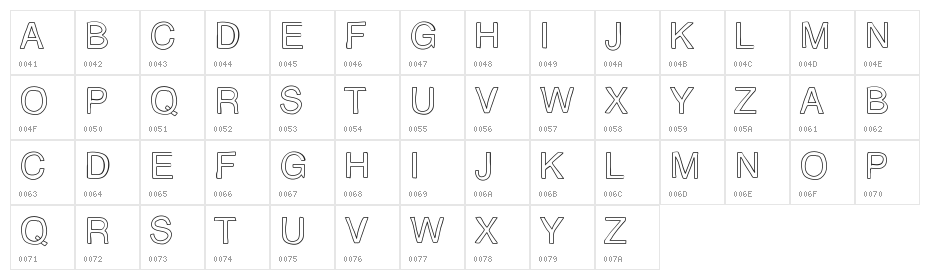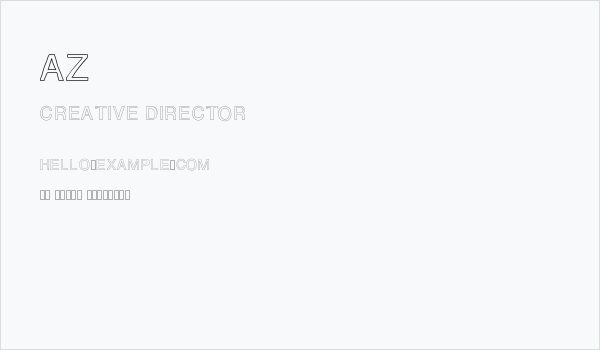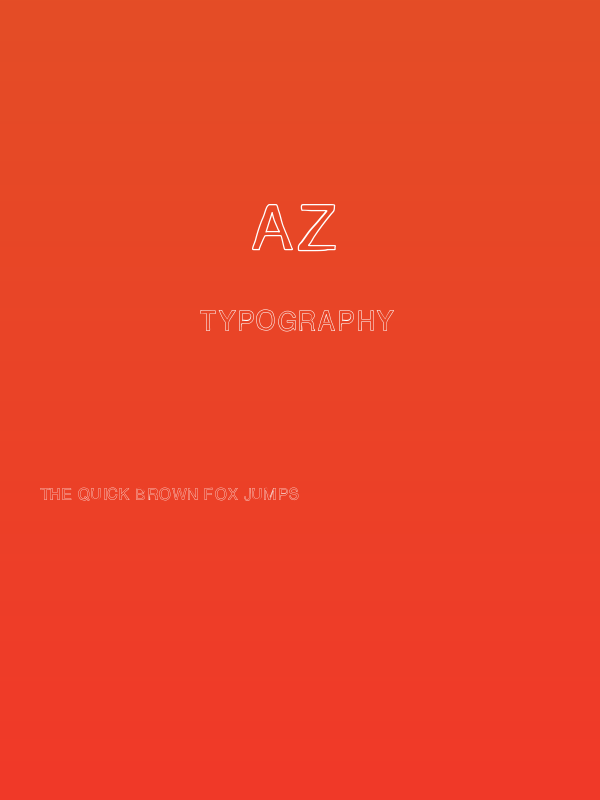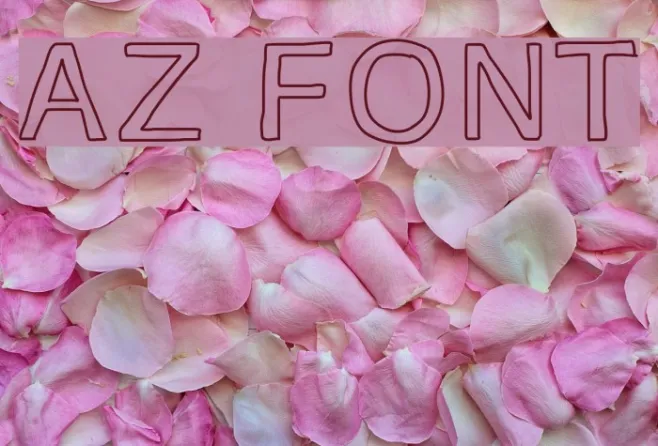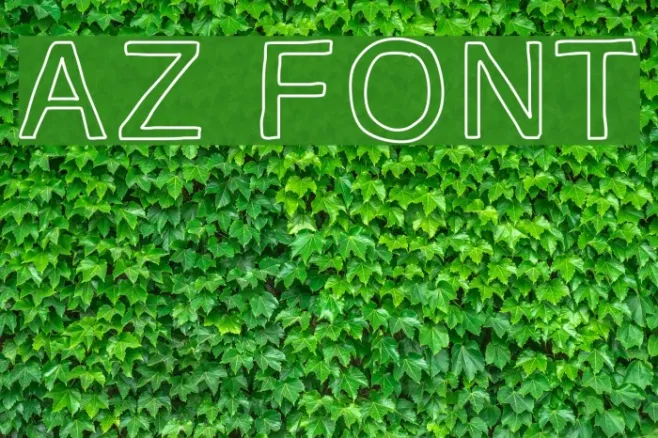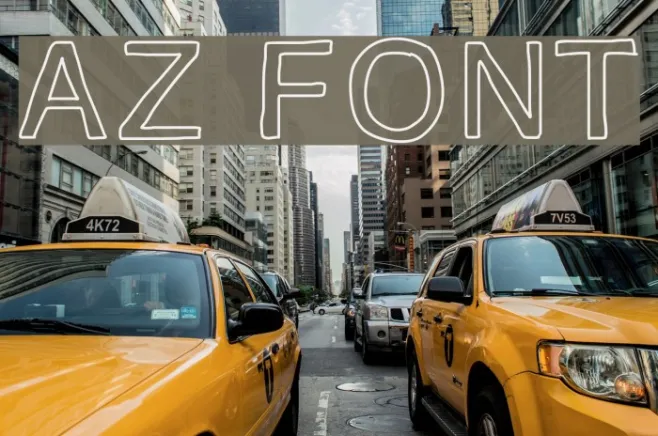
AZ Font
AZ Description
This font features a clean and modern outline style, characterized by its geometric and uniform letterforms. Each character is crafted with precision, maintaining consistent line thickness throughout. The uppercase letters exhibit a balanced and symmetrical design, making them highly legible and suitable for various applications. The font's simplicity and clarity lend it a versatile quality, ideal for both digital and print media. Its open and airy structure allows for easy readability, even at smaller sizes, while the outlined nature adds a unique visual interest that can enhance creative projects.
| Proposed Projects | Ideal for branding, signage, posters, and digital media where a modern and clean aesthetic is desired. |